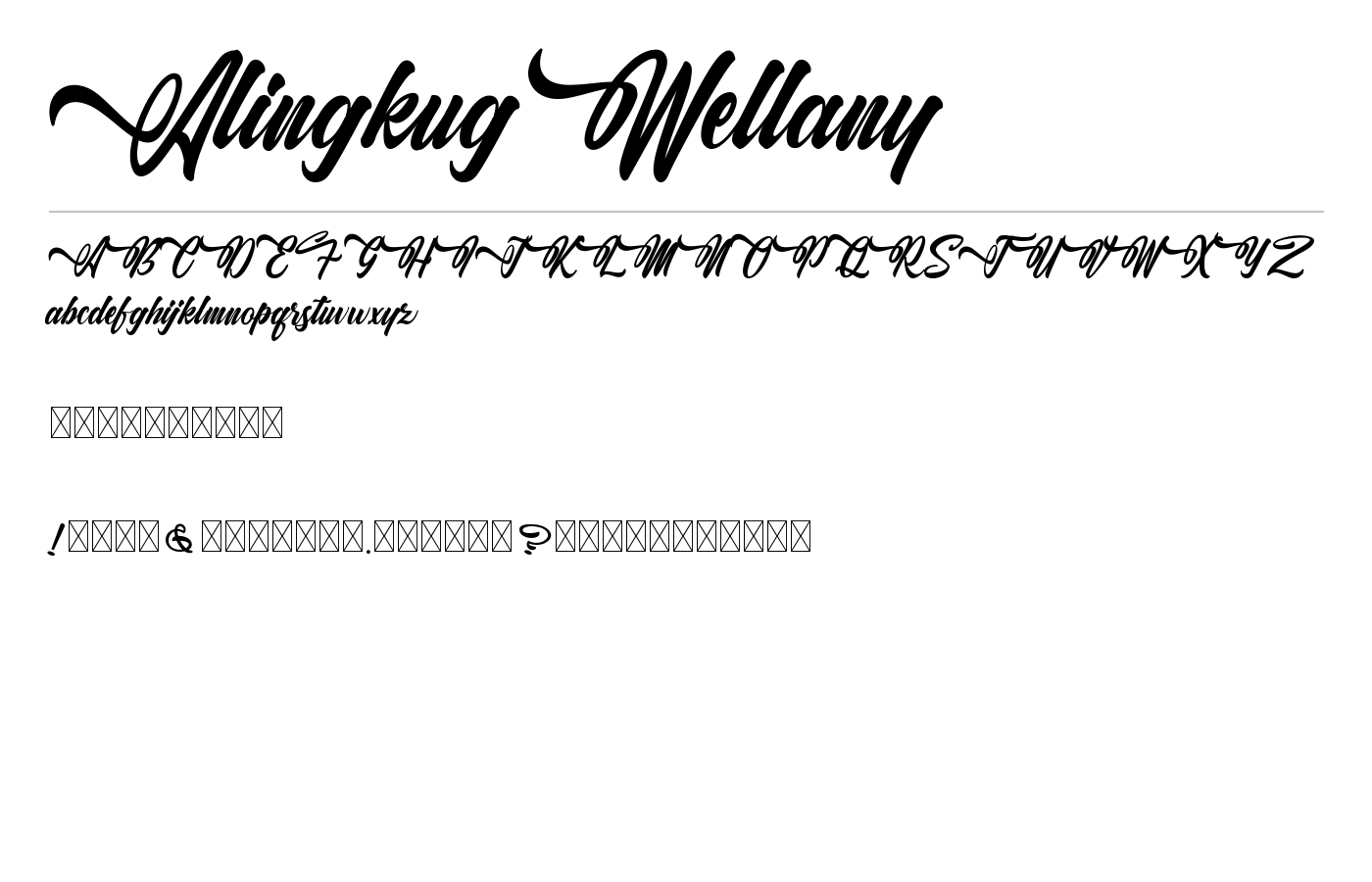
Alingkug Wellany is a stylish script font characterized by smooth, flowing strokes and elegant swashes that lend it a hand-lettered, calligraphic feel. Its bold weight and dynamic curves make it perfect for adding a personal, sophisticated touch to invitations, logos, and headlines, bringing a sense of creativity and refined flair to any design.
Alingkug Wellany Font
About Alingkug Wellany Font